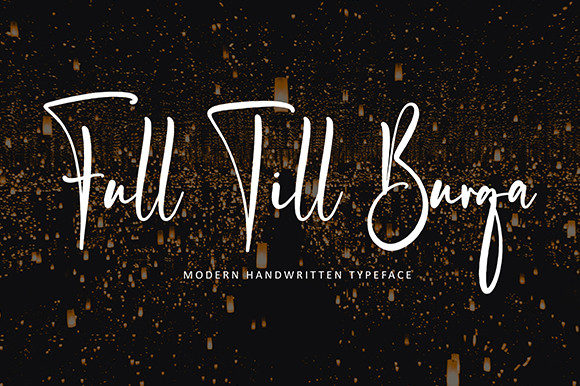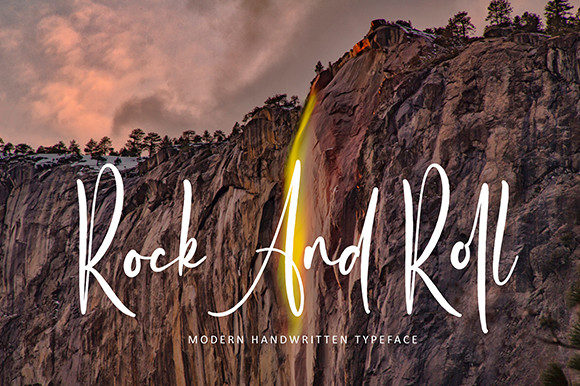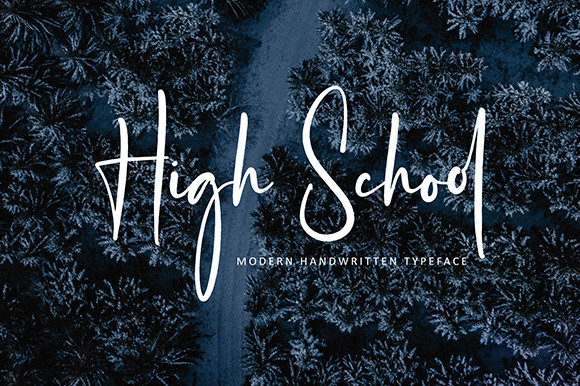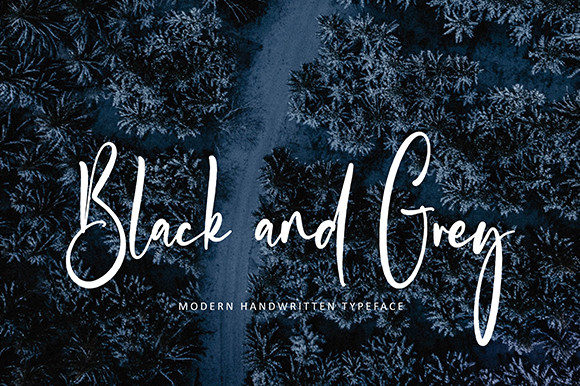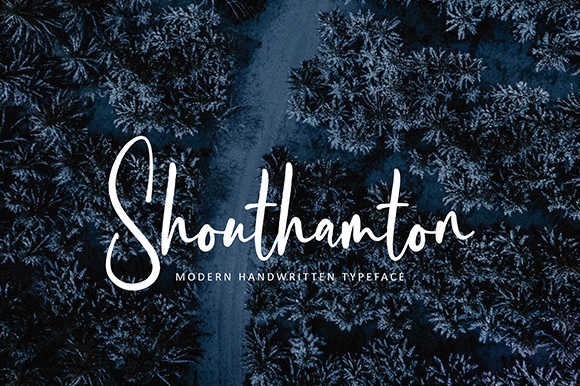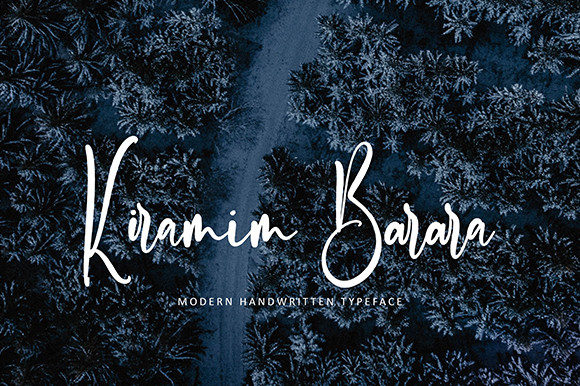
Introducing Amputasi Font: The Perfect Choice for Romantic Typography
Are you a designer or crafter looking for a font that exudes elegance and romance? Look no further than Amputasi Font. This stunning script font is designed to add a touch of sophistication and whimsy to any project. With its tall, simple, and fashionable design, Amputasi Font is the perfect choice for anyone seeking lovely, romantic typography.
What Makes Amputasi Font So Special?
Amputasi Font is more than just a beautiful script font. It’s a versatile tool that can elevate any project to new heights. Here are just a few reasons why Amputasi Font stands out:
- Tall and Elegant Design: Amputasi Font features a tall, slender design that’s perfect for creating stunning headlines, titles, and quotes.
- Simple yet Fashionable: Despite its elegant appearance, Amputasi Font is surprisingly simple to read and use. Its clean lines and minimalist design make it a great choice for a wide range of projects.
- PUA Encoded: Amputasi Font is PUA (Private Use Area) encoded, which means you can access all of the glyphs and swashes with ease. This makes it easy to customize your text and add unique touches to your designs.
Perfect for Romantic Projects
Amputasi Font is specifically designed for projects that require a romantic touch. Whether you’re working on a wedding invitation, a love letter, or a vintage-inspired poster, Amputasi Font is the perfect choice. Its elegant design and flowing script make it ideal for creating beautiful, eye-catching typography.
Use Amputasi Font for a Variety of Projects
Amputasi Font is versatile and can be used for a wide range of projects, including:
- Wedding Invitations: Add a touch of romance and elegance to your wedding invitations with Amputasi Font.
- Posters and Flyers: Use Amputasi Font to create stunning posters and flyers for events, promotions, and more.
- Social Media Graphics: Elevate your social media graphics with Amputasi Font’s elegant design.
- Logos and Branding: Use Amputasi Font to create a unique and memorable logo or brand identity.
Tips for Using Amputasi Font
Here are a few tips for getting the most out of Amputasi Font:
- Experiment with Swashes: Amputasi Font’s PUA encoding makes it easy to access a range of swashes and glyphs. Experiment with different combinations to add unique touches to your text.
- Pair with Other Fonts: Amputasi Font pairs well with a range of other fonts. Try pairing it with a bold sans-serif font for a striking contrast.
- Use for Headlines and Titles: Amputasi Font is perfect for headlines and titles. Use it to add a touch of elegance and sophistication to your text.
Amputasi Font is a stunning script font that’s perfect for designers and crafters seeking lovely, romantic typography. With its tall, simple, and fashionable design, Amputasi Font is sure to elevate any project to new heights. Its PUA encoding makes it easy to customize and use, and its versatility means it can be used for a wide range of projects. Whether you’re working on a wedding invitation, a poster, or a social media graphic, Amputasi Font is the perfect choice.